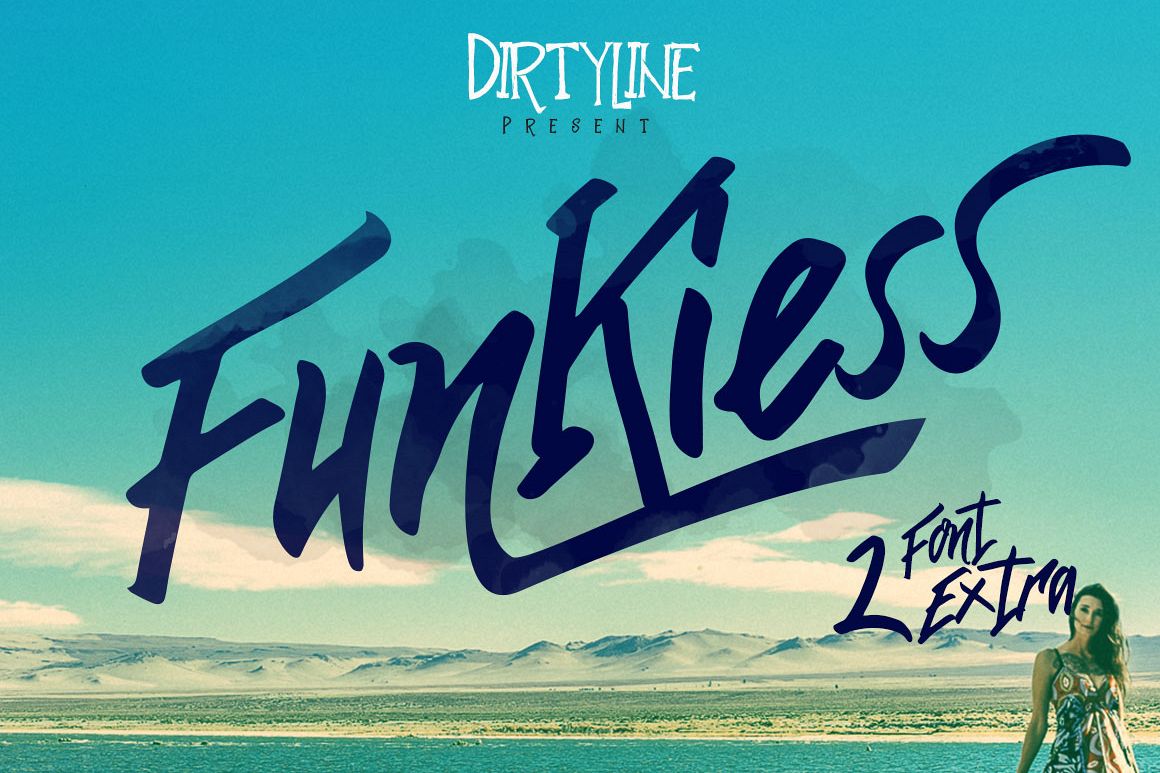
Funkiess - Display Typeface + Bonus
Funkies
Funkies Serif
Funkies Dingbat
Introducing Funkiess handwritten letters and some combination of style Street and Funky. wild hand and imperfect flow give the natural looks.The Features of this fonts is:
• Initial Forms
• Terminal Forms
• International glyphs